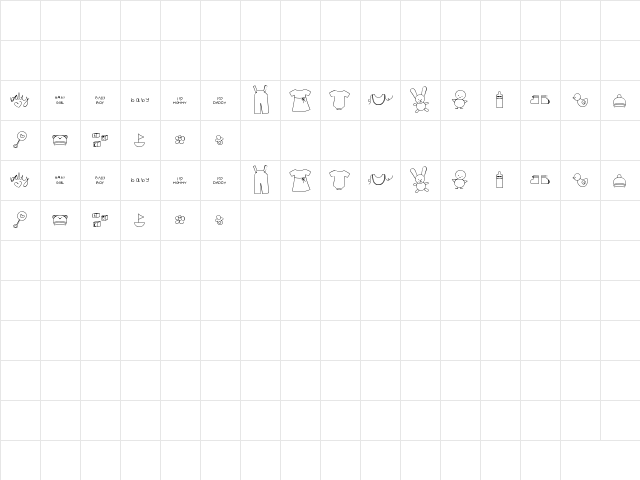
MTF Itty Bitty Baby Regular
Design Context for MTF Itty Bitty Baby Typeface
MTF Itty Bitty Baby is a composed and adaptable typeface that performs quietly and consistently across a wide range of design contexts.